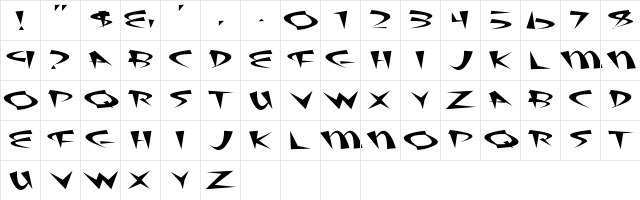
Fat Plain Font Preview
Fat Plain
Fat Plain Font Details
Design Context for Fat Typeface
Fat is a composed and adaptable typeface that performs quietly and consistently across a wide range of design contexts.